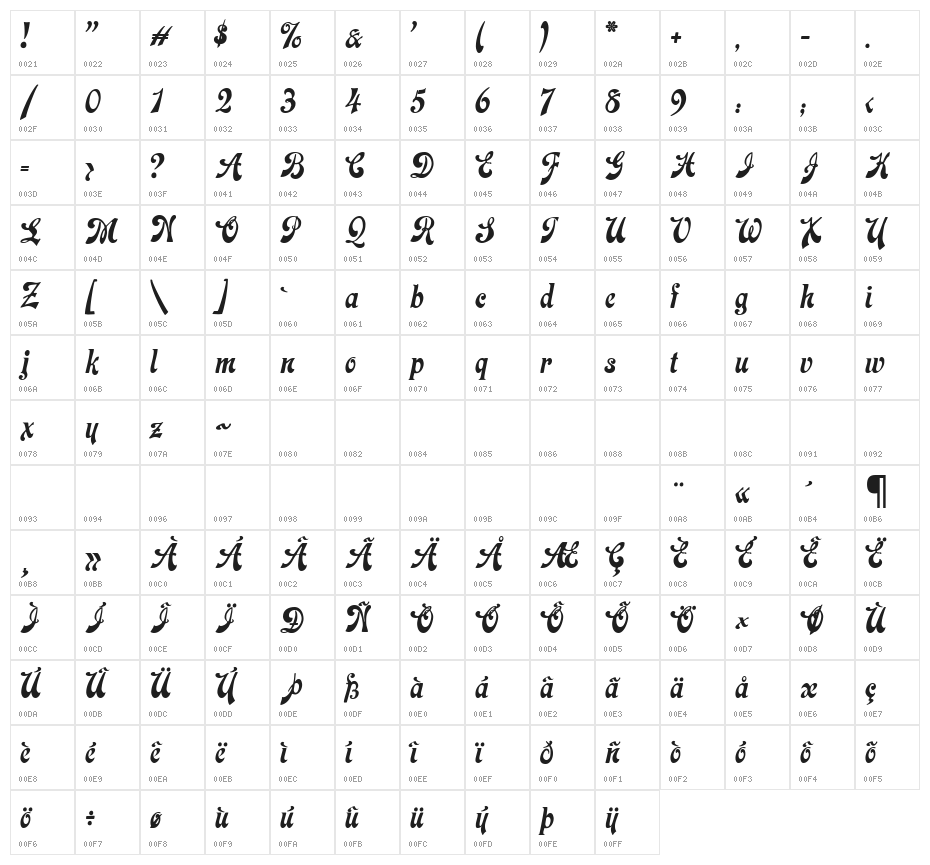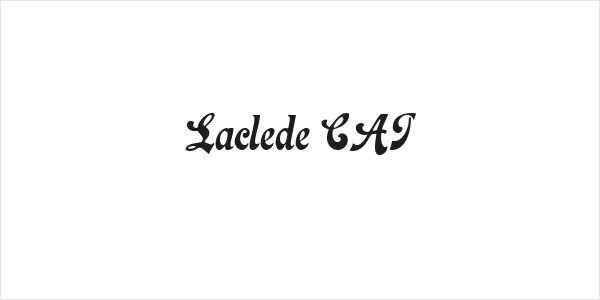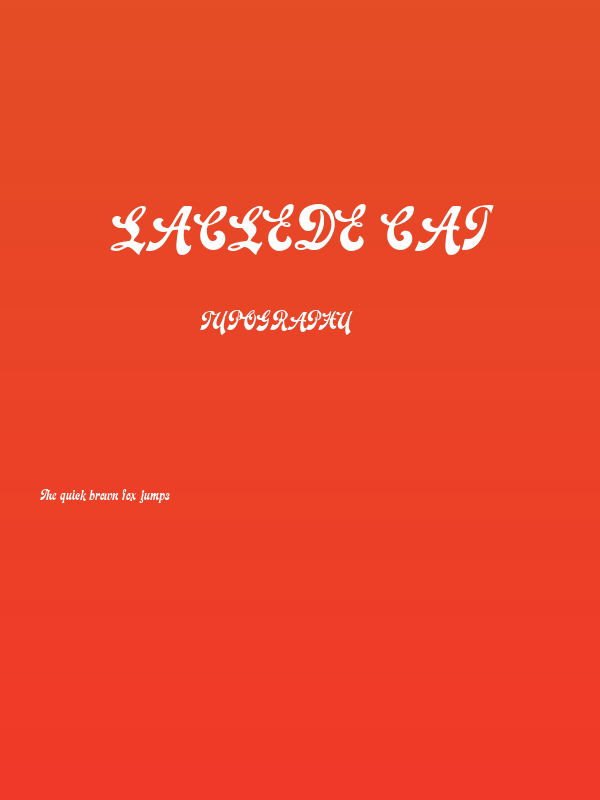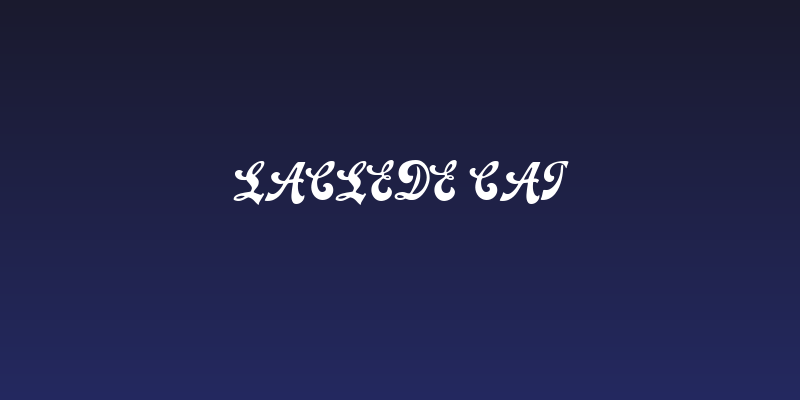
Laclede CAT Font
Laclede CAT Description
This font features a bold and dynamic script style with a strong presence. The characters are designed with a flowing, cursive appearance, giving it a sense of movement and elegance. The uppercase letters are particularly ornate, with exaggerated curves and flourishes that add a decorative touch. The lowercase letters maintain a consistent style, complementing the uppercase with their own subtle curves. Numbers and special characters are crafted to match the overall aesthetic, ensuring a cohesive look across all glyphs. The font's bold weight and high contrast between thick and thin strokes make it stand out, suitable for attention-grabbing designs.
| Proposed Projects | Ideal for branding, invitations, posters, and any project requiring a bold, decorative script. |